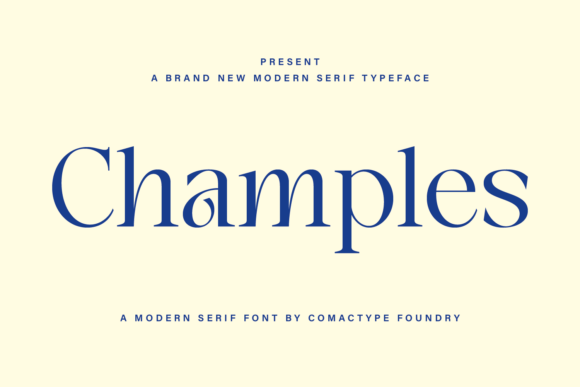
The Elegance of Champles Font: A Designer’s New Best Friend
I still remember the project like it was yesterday. I was working on a luxury brand’s brochure, and my client asked for a font that exuded elegance, sophistication, and a touch of modernity. I scoured the internet, tried out countless fonts, but nothing seemed to fit the bill. That was until I stumbled upon Champles Font. ✨
As soon as I saw it, I knew I had found the one. The sleek letterforms, the sharp edges, and the refined decorative details all screamed luxury and elegance. But what really caught my attention was its unique blend of classic typography elements with a contemporary touch. It was as if the font was saying, “I’ve got the sophistication of a serif font, but with a modern twist that’ll make your design pop!” 🎉
An Honest Review of Champles Font
- ✅ Elegant and sophisticated: Champles Font is perfect for luxury brands, high-end products, or any design that requires a touch of refinement.
- ✨ Unique and distinctive: The font’s sharp edges and refined details make it stand out from more traditional serif fonts.
- 🔥 Versatile: Champles Font works beautifully in both digital and print formats, from body text to headings.
While Champles Font is an excellent choice for many designs, it’s not without its quirks. 🤔 For example:
- ⚠️ Limited use in body text: While the font is beautiful, its elegant and refined nature makes it better suited for headings and titles rather than long blocks of body text.
- ⚠️ May require adjustments for certain languages: As with any font, some languages may require additional adjustments to ensure proper kerning and spacing.
- Experiment with OpenType features, such as ligatures and stylistic alternates, to add an extra layer of sophistication to your design.
The Backstory of Champles Font
Champles Font was designed by a team of typographers who wanted to create a font that blended the best of classic and modern typography. Inspired by the elegance of luxury brands and the sophistication of high-end design, they crafted a font that would meet the needs of designers looking for something unique and refined.
| Font Name | Champles Font |
| Author | Comactype Foundry |
| What is Champles Font best suited for? | Champles Font is perfect for luxury brands, high-end products, and designs that require a touch of elegance and sophistication. |
| Can I use Champles Font for body text? | While Champles Font is beautiful, it’s better suited for headings and titles. For body text, consider a font with better readability. |
| Is Champles Font available in different weights? | Yes, Champles Font comes in various weights, making it versatile for different design applications. |